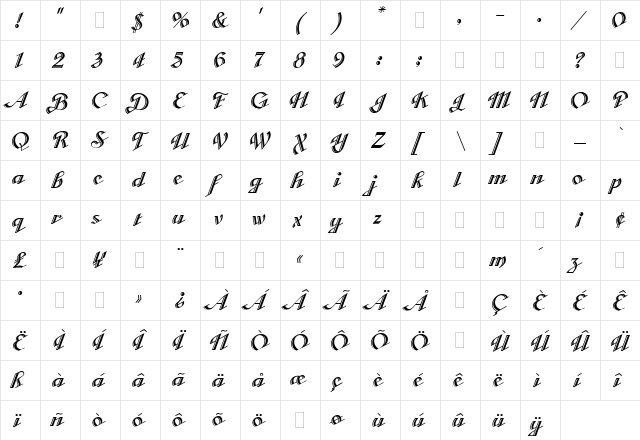
Cabarga CursivaLET
Design Context for Cabarga Typeface
Cabarga brings a calligraphic fluidity to the page — its connecting strokes and expressive curves give it an unmistakably human quality.
Font Pairing: Combine Cabarga with a simple geometric sans for maximum contrast — the tension between flowing curves and clean structure is a classic typographic pairing.
Pro Tip: Pair Cabarga with a clean sans-serif for supporting text. The contrast between fluid script and geometric structure creates an elegant typographic hierarchy.